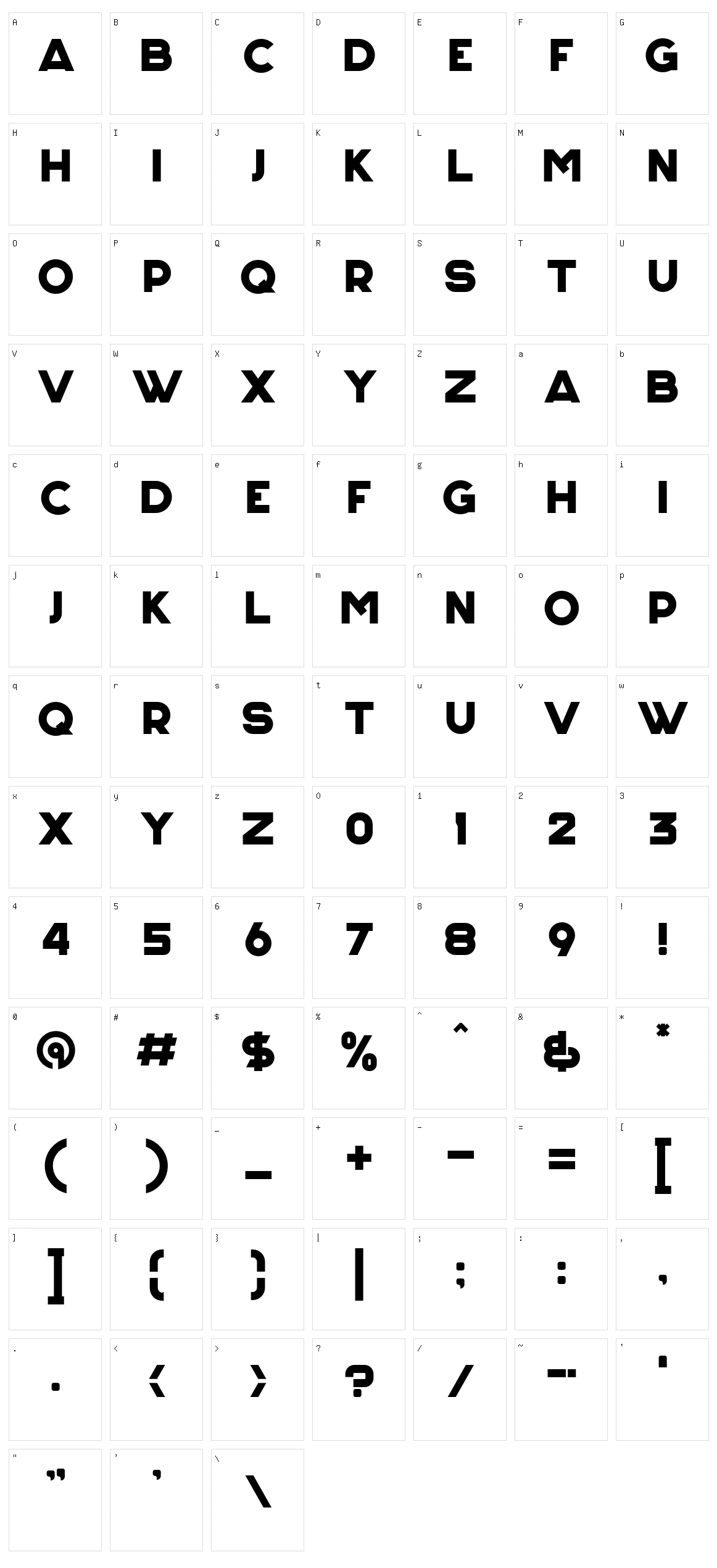
The free font Overgrow is carefully designed by Fikri Rahman, showcasing a thoughtful balance of creativity and usability and falls under the Sans serif font style. When you download the ZIP file, it contains only 10.69 KB of font files, making it lightweight and quick to download. Please review the license details below to understand permitted usage and distribution rights. If license information is not available, we recommend using this font for personal projects only or contacting the author directly for commercial usage permissions.